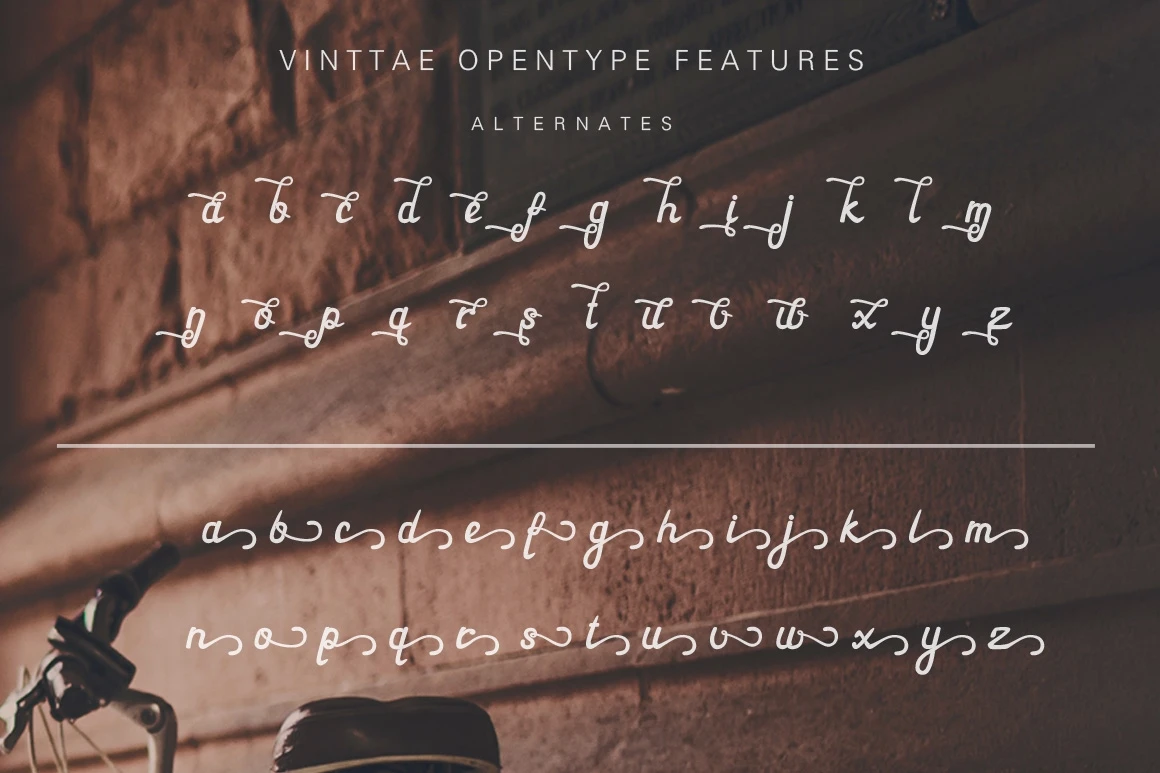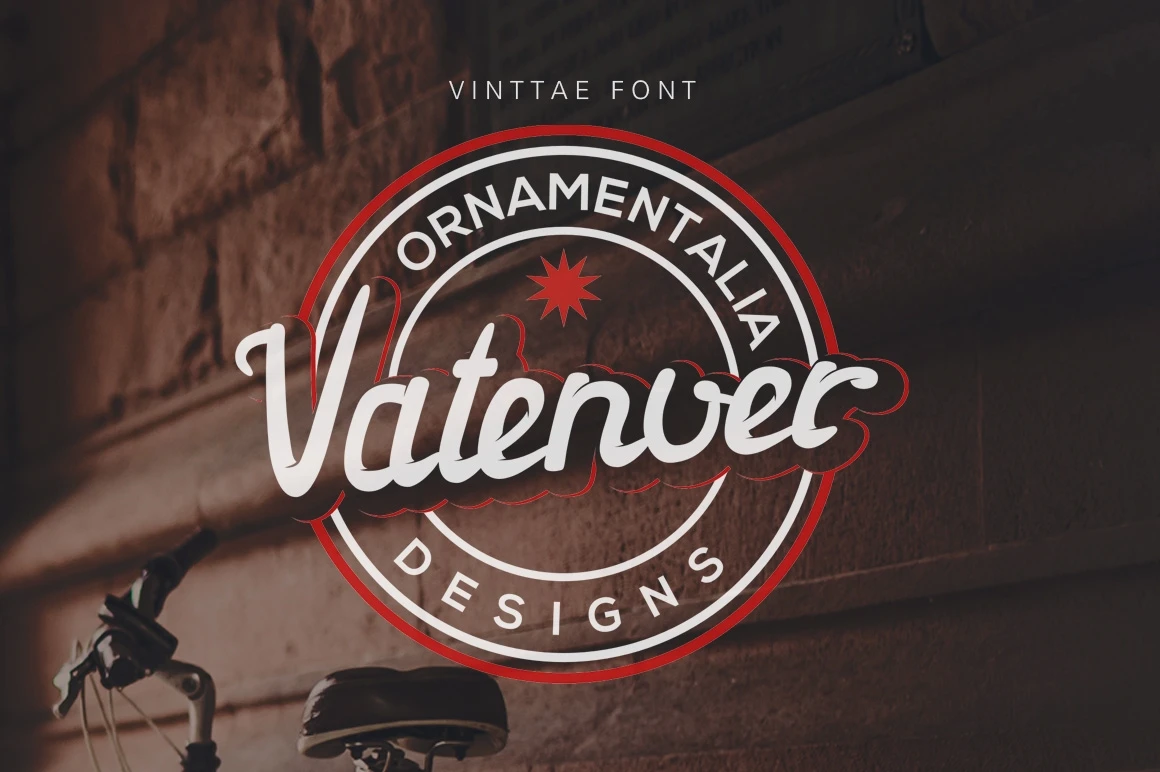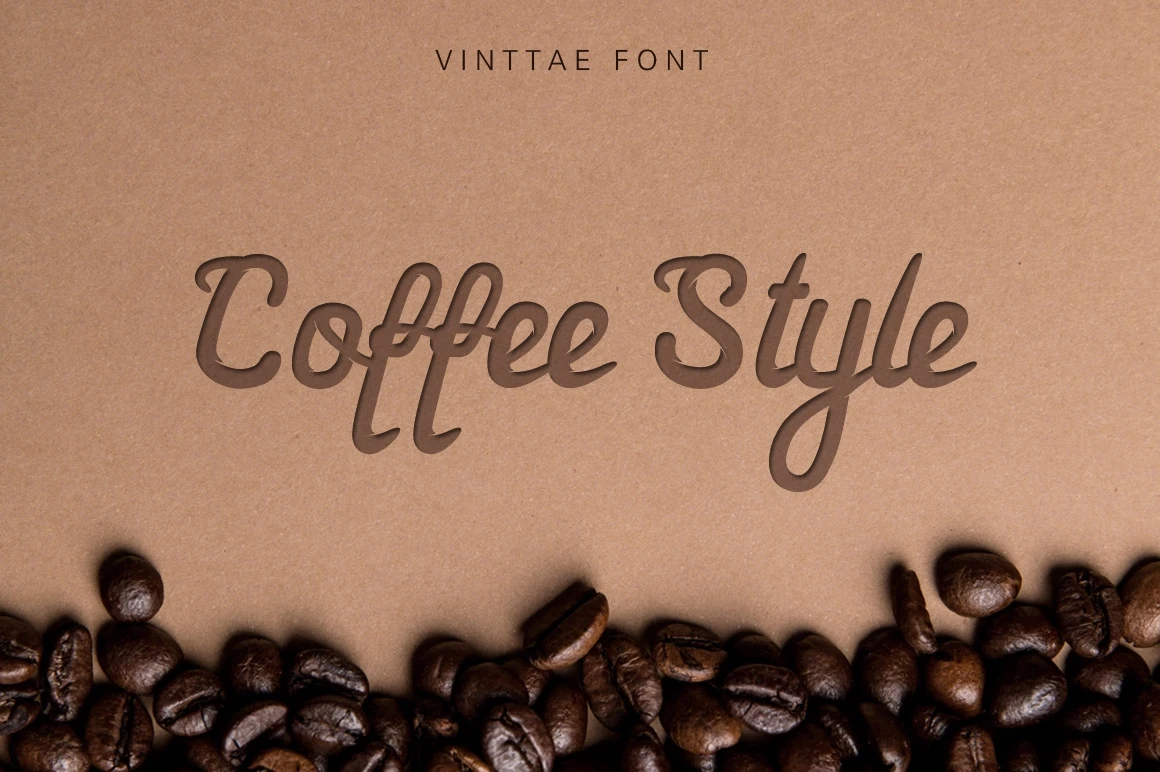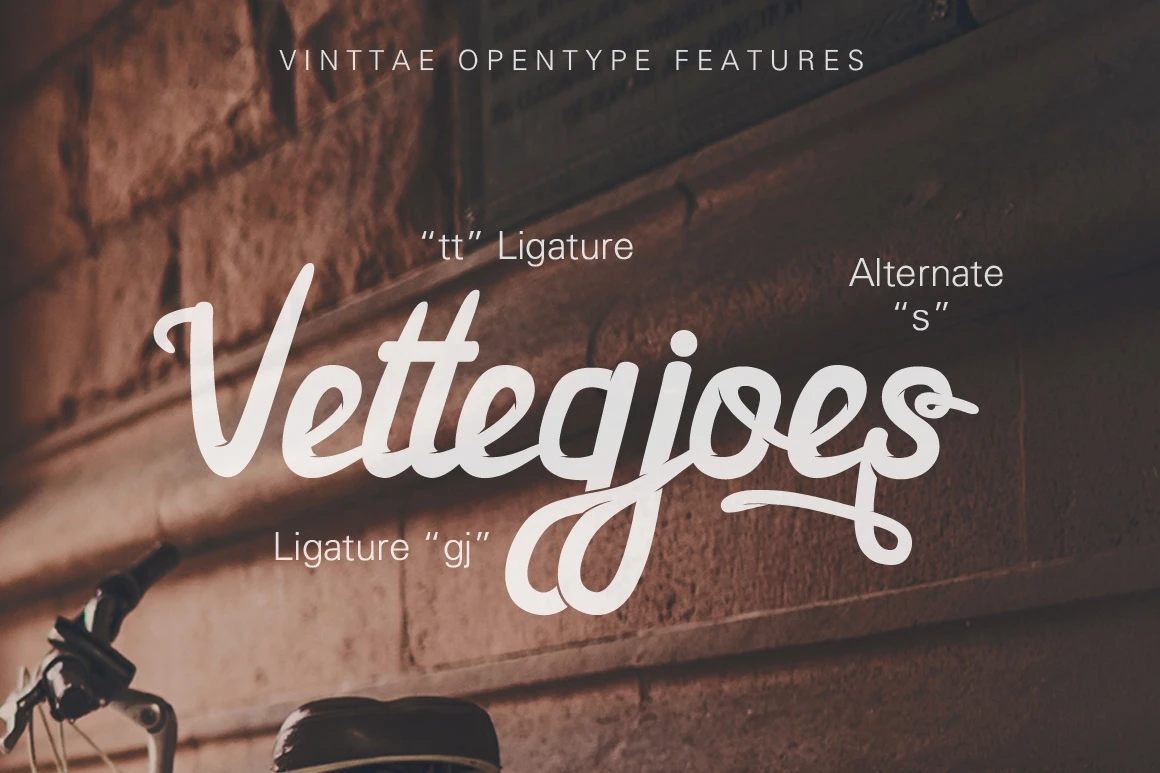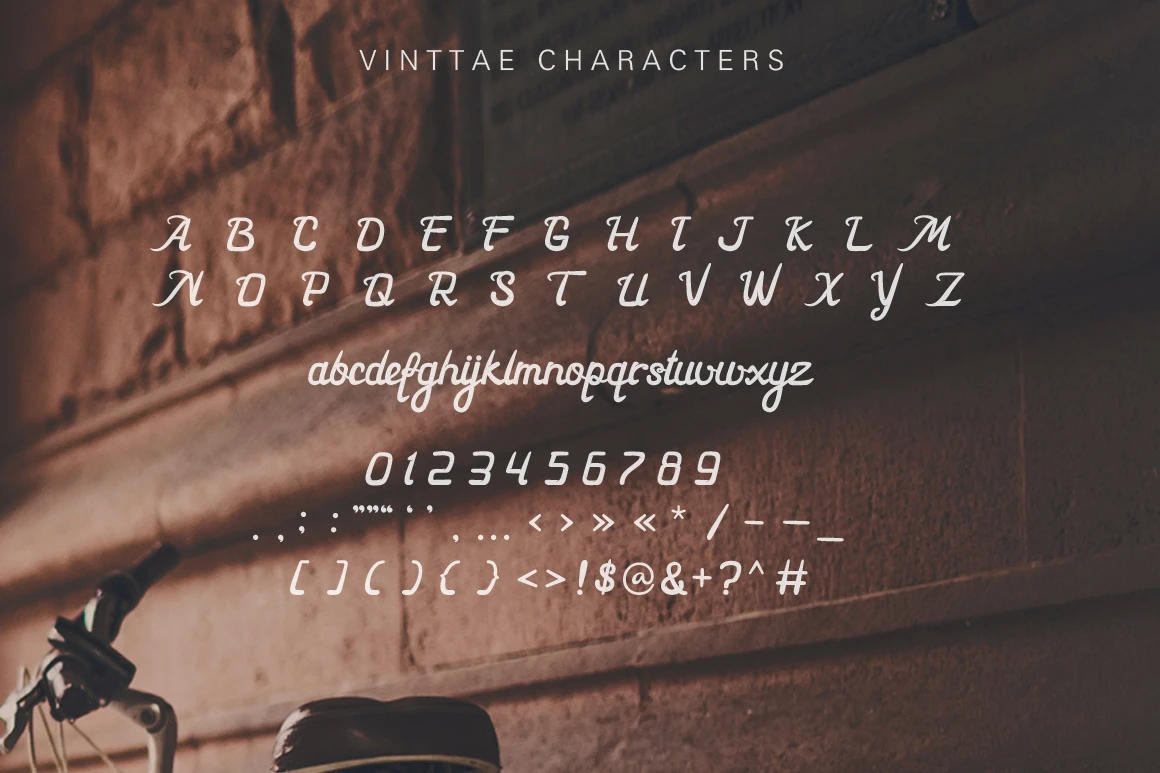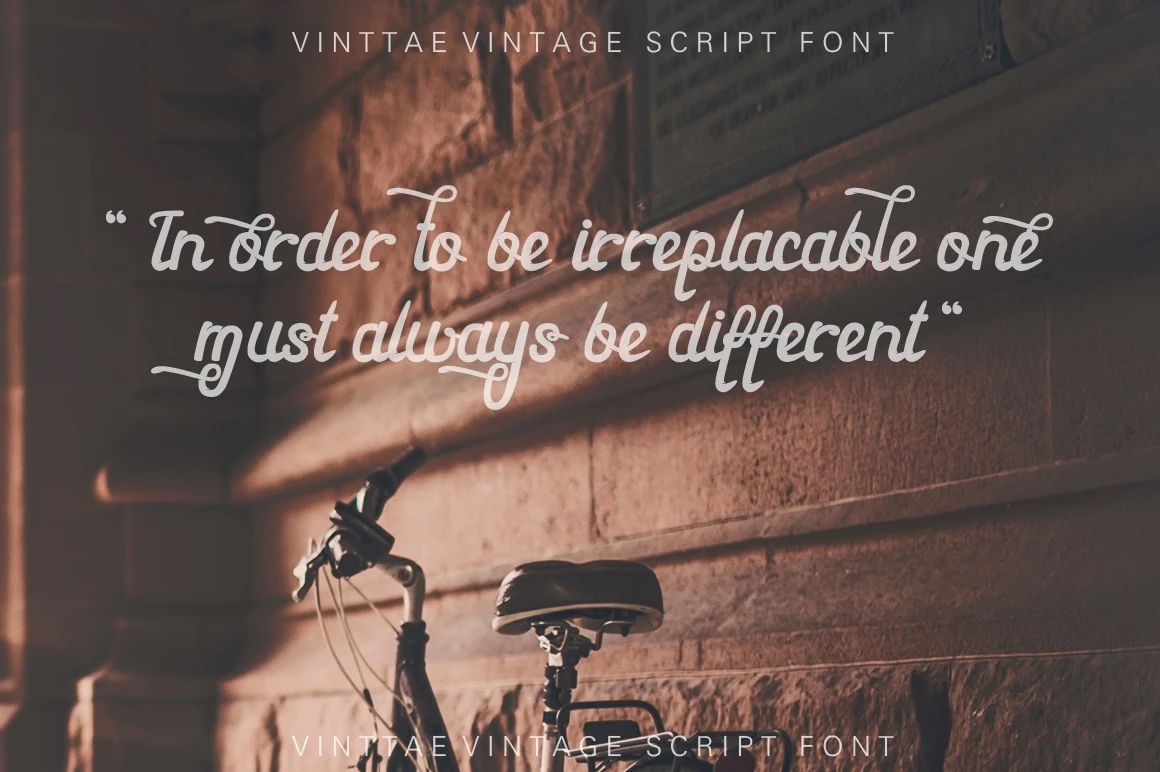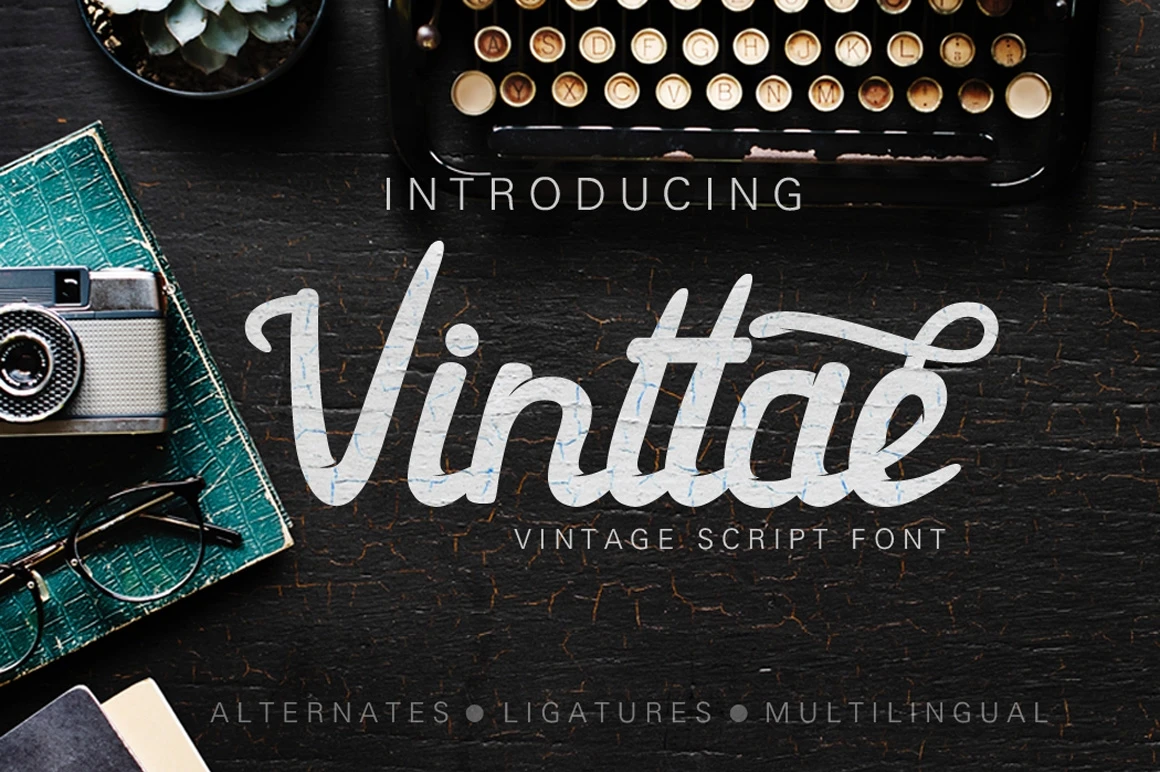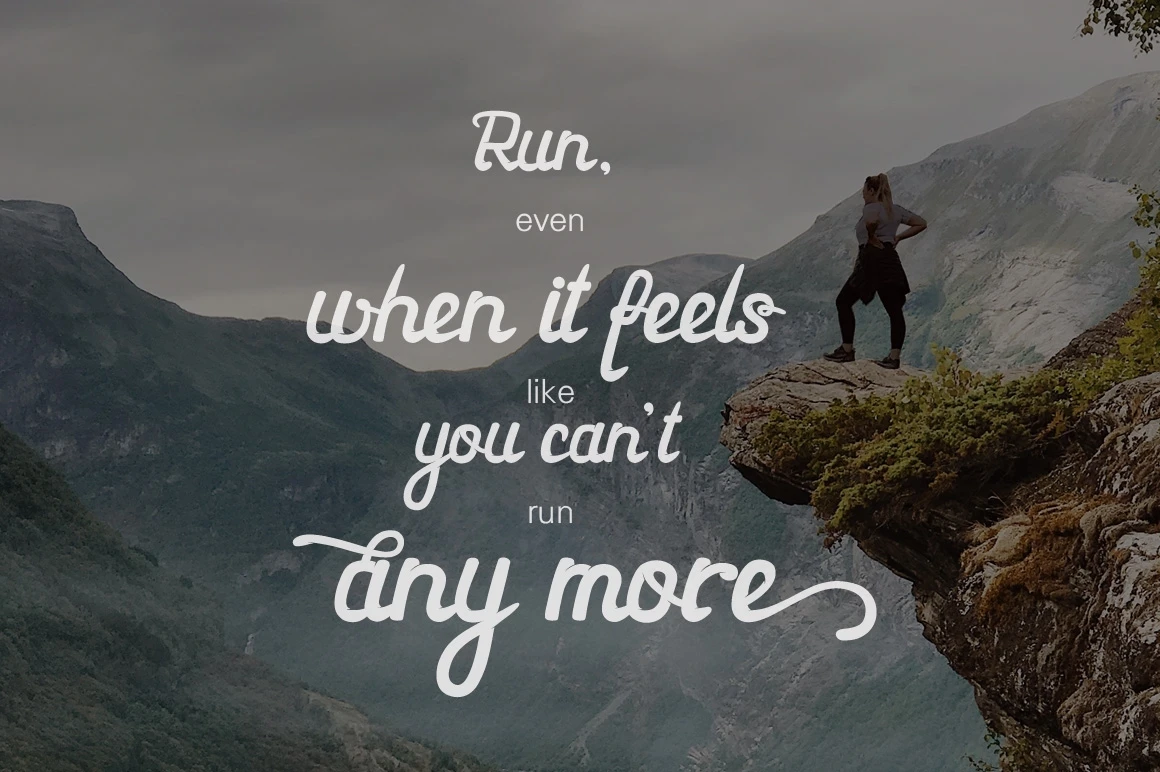
Vinttae is a vintage script font with bold and smooth look, perfect for many vintage projects.
Vinttae great for logos, quotes, headers, product packaging and many more!
Features :
- Uppercase A-Z
- Lowercase a-z
- Numbers 0-9
- Punctuation
- Custom Ligatures
- lowercase alternates
- Multilingual support